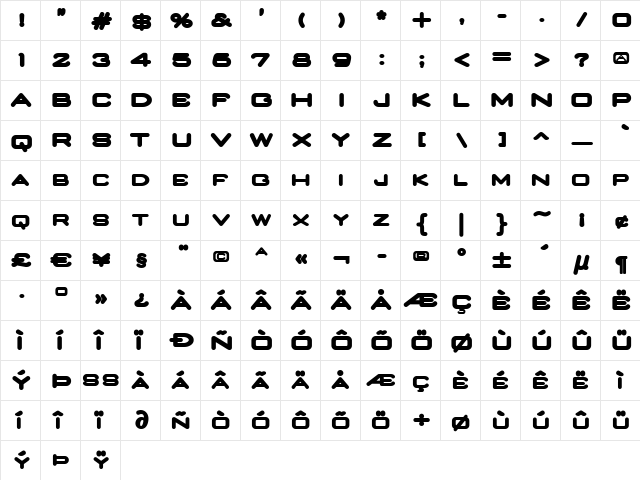
Nedian ExtraBold Font Preview
Nedian ExtraBold
Nedian ExtraBold Font Details
| Style | ExtraBold |
| Foundry | \ [T- ] N. Milwaukee Ave. Chicago, IL T \ ID# \ Designer: Matteo Civaschi \ |
Design Context for Nedian Typeface
Nedian is a composed and adaptable typeface that performs quietly and consistently across a wide range of design contexts. The heavy weight commands attention and anchors typographic hierarchies.